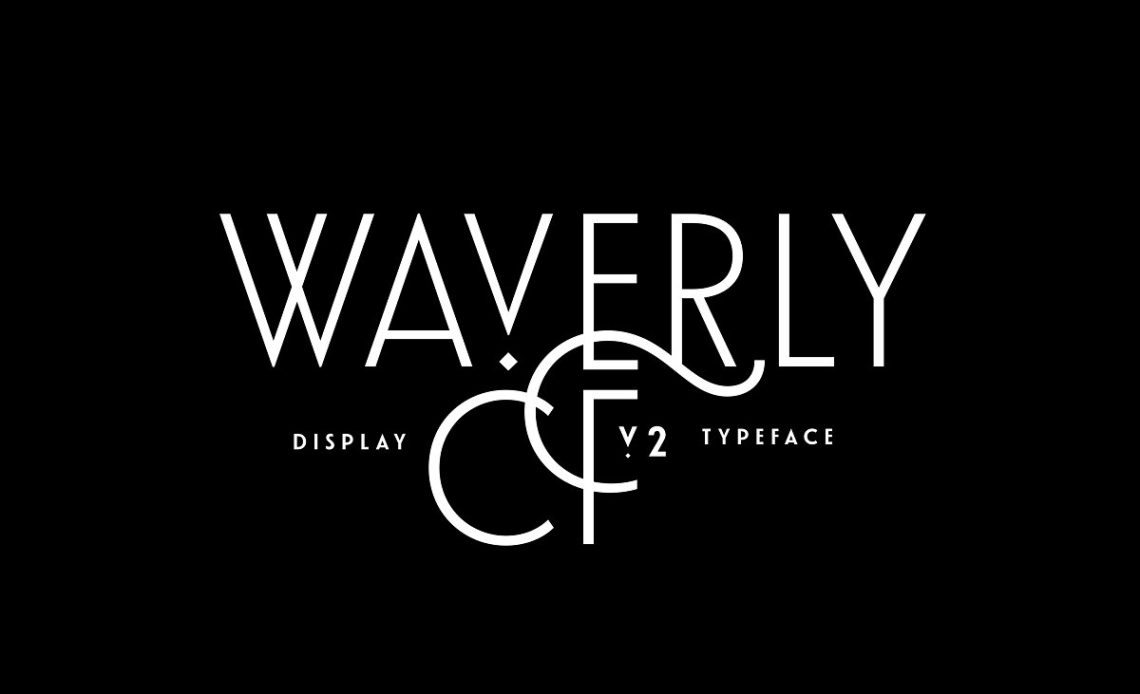
Looking for a font that combines the timeless appeal of Art Deco with a modern and elegant touch? Look no further than Waverly CF, an exquisite display sans font that's perfect for creating head-turning headlines, logos, and large type.
Created by the talented designer Connary Fagen, Waverly CF is a sans serif font that seamlessly blends the smooth flow of classic calligraphy with a clean and contemporary aesthetic. With its seven weights and small caps in place of lowercase, this font offers a wide range of options for any design project.
But what sets Waverly CF apart is its swashes, ligatures, and alternate glyphs that allow you to add your own unique touch to your designs. Whether you're creating an elegant wedding invitation or a striking billboard, this font has everything you need to make a statement.